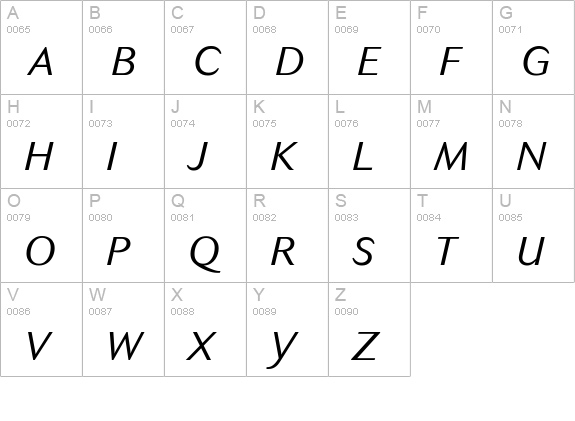
Cosmos Light Italic Font Details
Cosmos Light Italic is a refined, elegant, italic variant in the Cosmos typeface family \xE2\x80\x94 well suited to elegant body text, refined sub-headings, and luxury branding.
The Cosmos Light Italic font is a beautifully crafted typeface that exudes elegance and sophistication. Its delicate and graceful italic style adds a touch of refinement to any design project. This font is perfect for creating a sense of modernity and chicness in your work. What sets Cosmos Light Italic font apart is not only its stunning aesthetic appeal but also the fact that it is available for free download at FontsMarket.com. This means that you can easily access this high-quality font without any cost, making it a valuable resource for designers and creatives looking to elevate their projects. With its sleek lines and stylish curves, the Cosmos Light Italic font is versatile and can be used in a variety of design applications, from branding and advertising to editorial and web design. Enhance your projects with this sophisticated font and make a lasting impression on your audience. Download Cosmos Light Italic font for free today and add a touch of elegance to your creations.